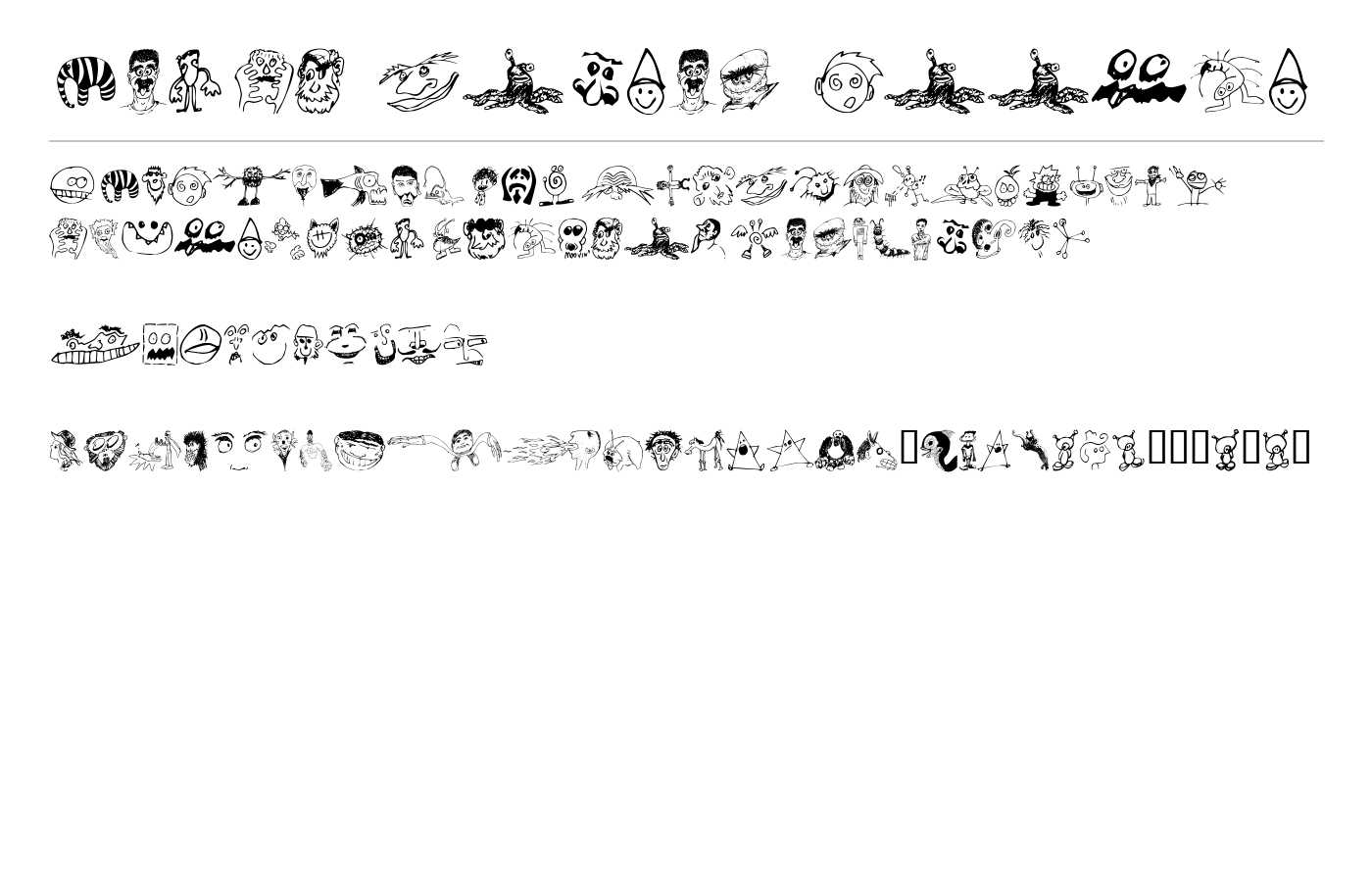
Brian Powers Doodle Font is a playful and highly creative handwritten typeface that features quirky, expressive doodle-style characters. With its irregular shapes and whimsical faces, it brings a fun, casual, and artistic vibe, perfect for informal projects, children’s materials, or any design seeking a unique, lighthearted touch. This font works best in eye-catching headlines, invitations, and creative branding where personality and charm are key.
Brian Powers Doodle Font